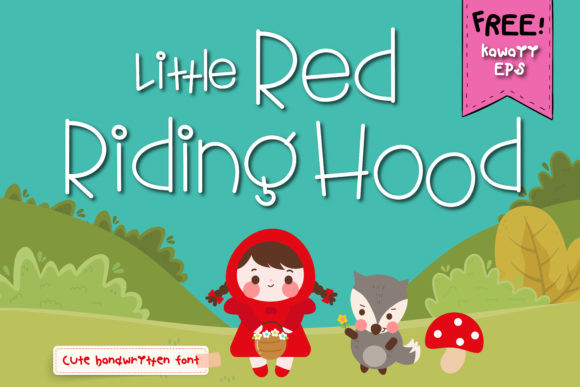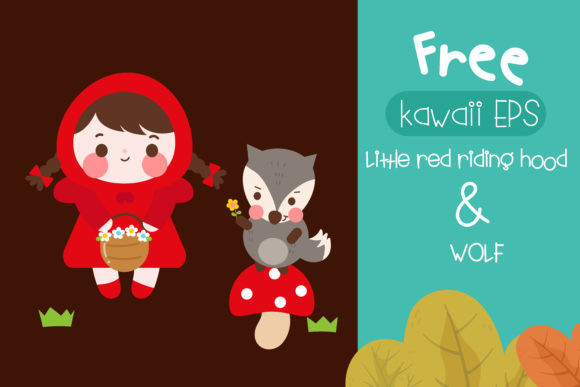
Little Red Riding Hood Font
Little Red Riding Hood is a cute handwritten font. This enchanting font will turn any creative idea into a true standout. Get creative with its childlike playfulness, and use it to brighten up any kids and school project!